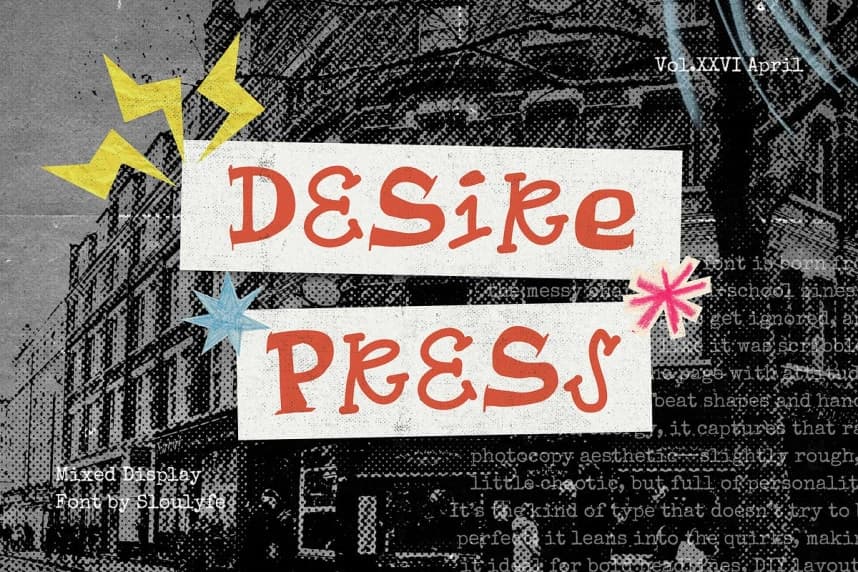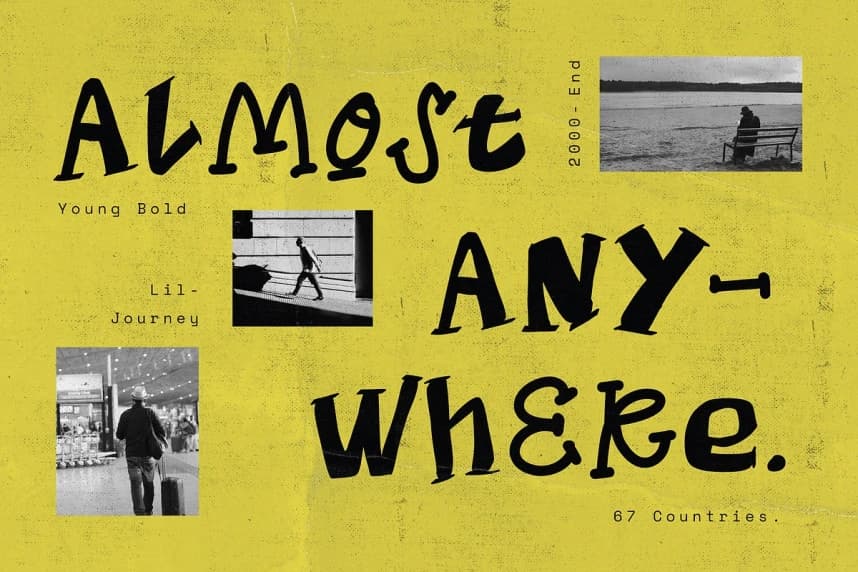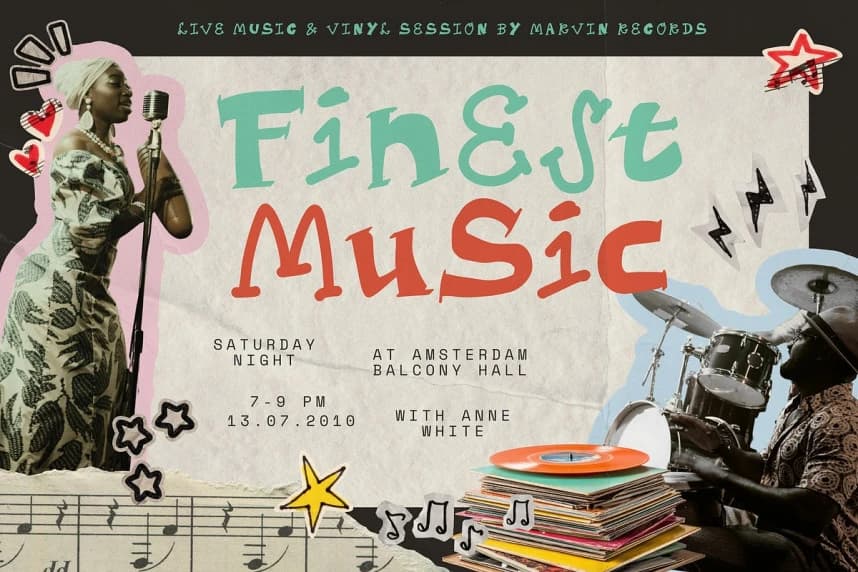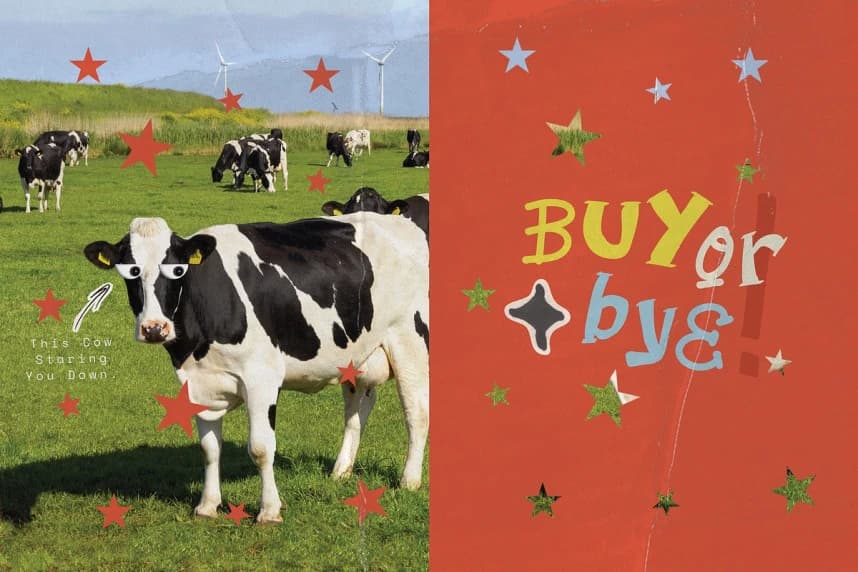
Desire Press Font
Desire Press Font bursts in with gritty, mixed letterforms that follow zero rules. The shapes feel bold yet quirky, slightly offbeat, with that messy charm and playful rebel edge—like a raw zine style straight from the copy machine.